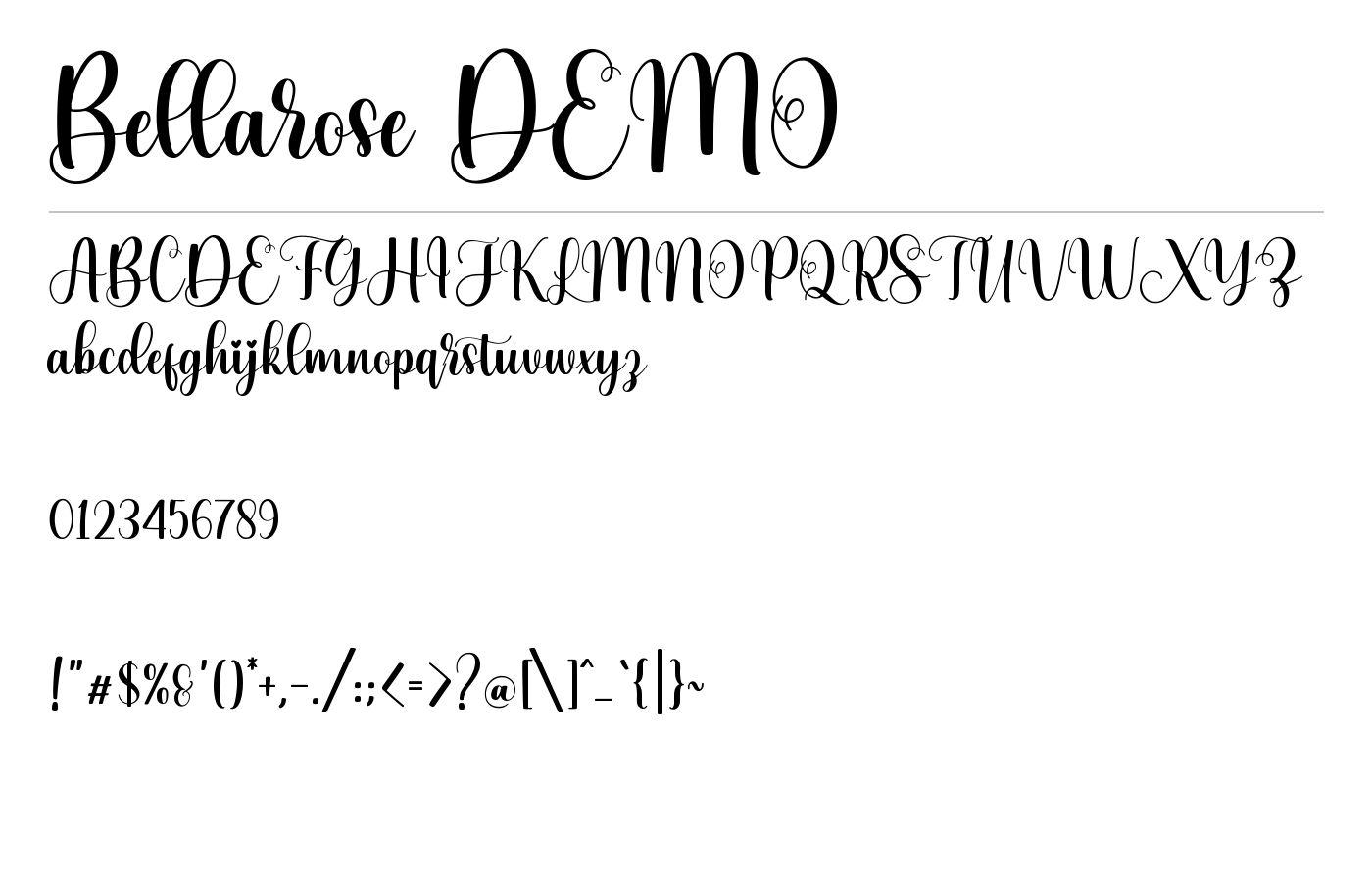
Bellarose DEMO is an elegant script font featuring delicate, flowing letterforms with decorative flourishes that bring a graceful, feminine charm. Its tall, narrow characters with varying stroke contrast make it ideal for invitations, branding, and headlines where a sophisticated and stylish look is desired. This font works particularly well for luxury, wedding, and fashion designs needing a touch of refined beauty.
Bellarose DEMO Font